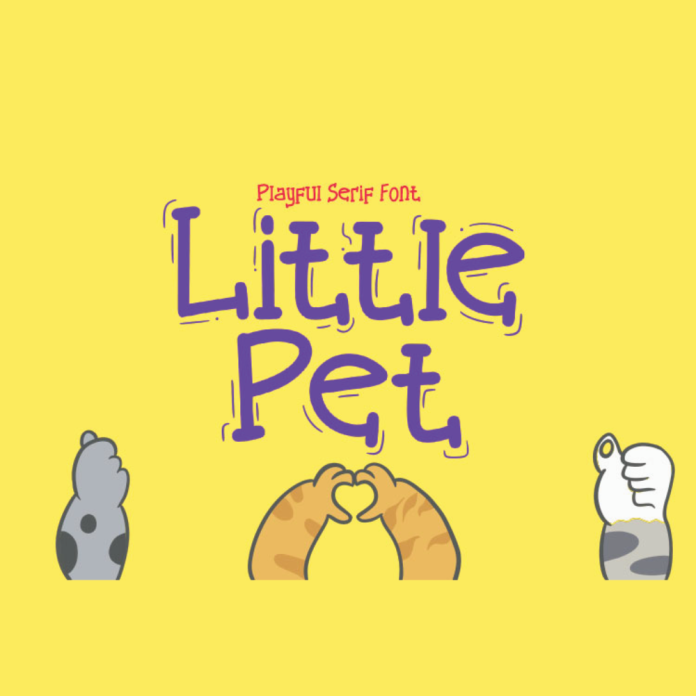
Little Pet cute font for pet shop animal care
Little Pet cute font is a playful and whimsical design perfect for pet shops and animal care services. Its key features include adorable animal-inspired letters, a child-friendly style, and a fun and inviting aesthetic. This font is designed to appeal to children and pet lovers, making it an ideal choice for branding and marketing materials in the pet industry.